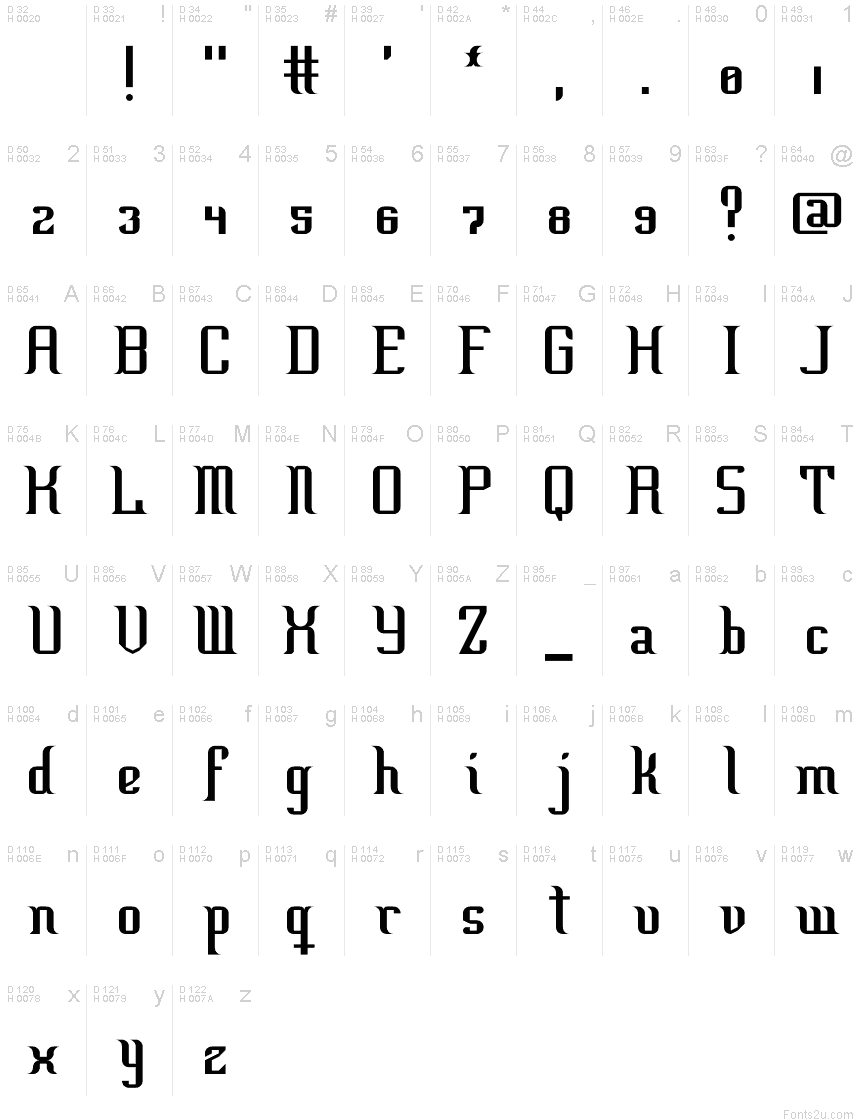
Valle Lejano, designed by Juan Casco of FontShop International GmbH, is a free modern blackletter display font with a stark, architectural profile. Tall vertical strokes and sharp cutoffs give it a formal Gothic edge.
Its blackletter heritage makes it apt for metal music graphics, fantasy publishing, and event posters. In fashion branding, the clean contours make the old-world structure look severe and contemporary. It is most convincing in a title that needs the lettering itself to set a dark, ceremonial scene.
Valle Lejano
Juan Casco